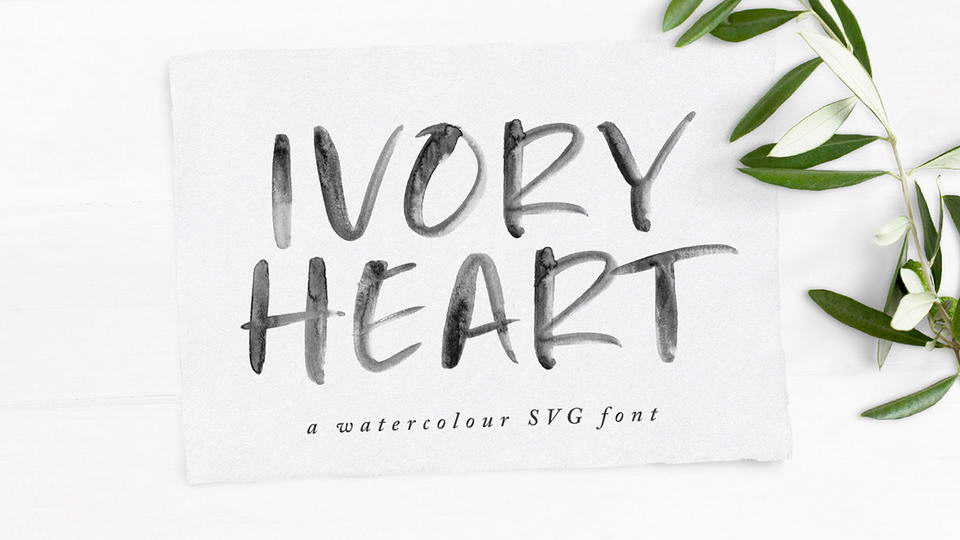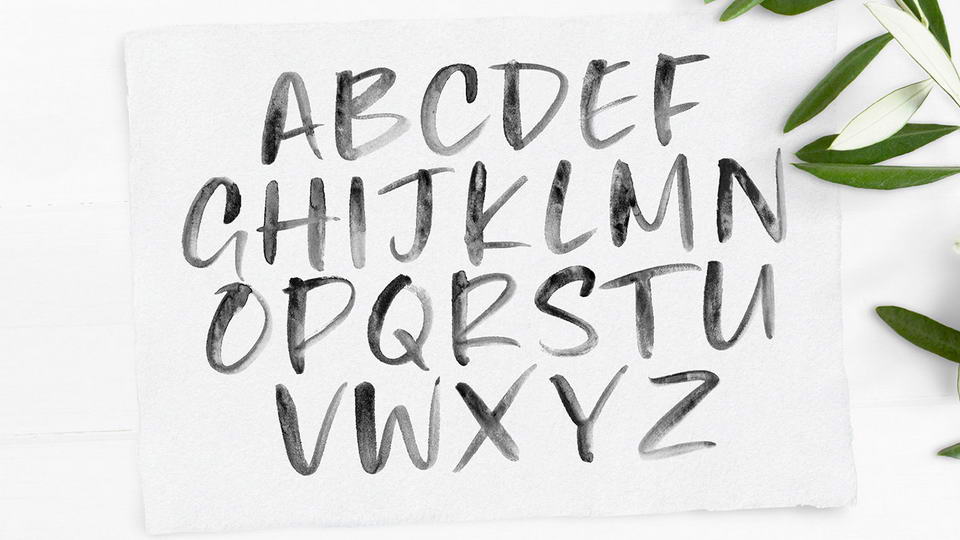
Ivory Heart – free all-caps brush font created using real, hand painted watercolour lettering It’s a stunning highly detailed typeface in the new Open type SVG format. It’s the perfect choice for handwritten quotes, greeting cards, wedding designs, branding & more.